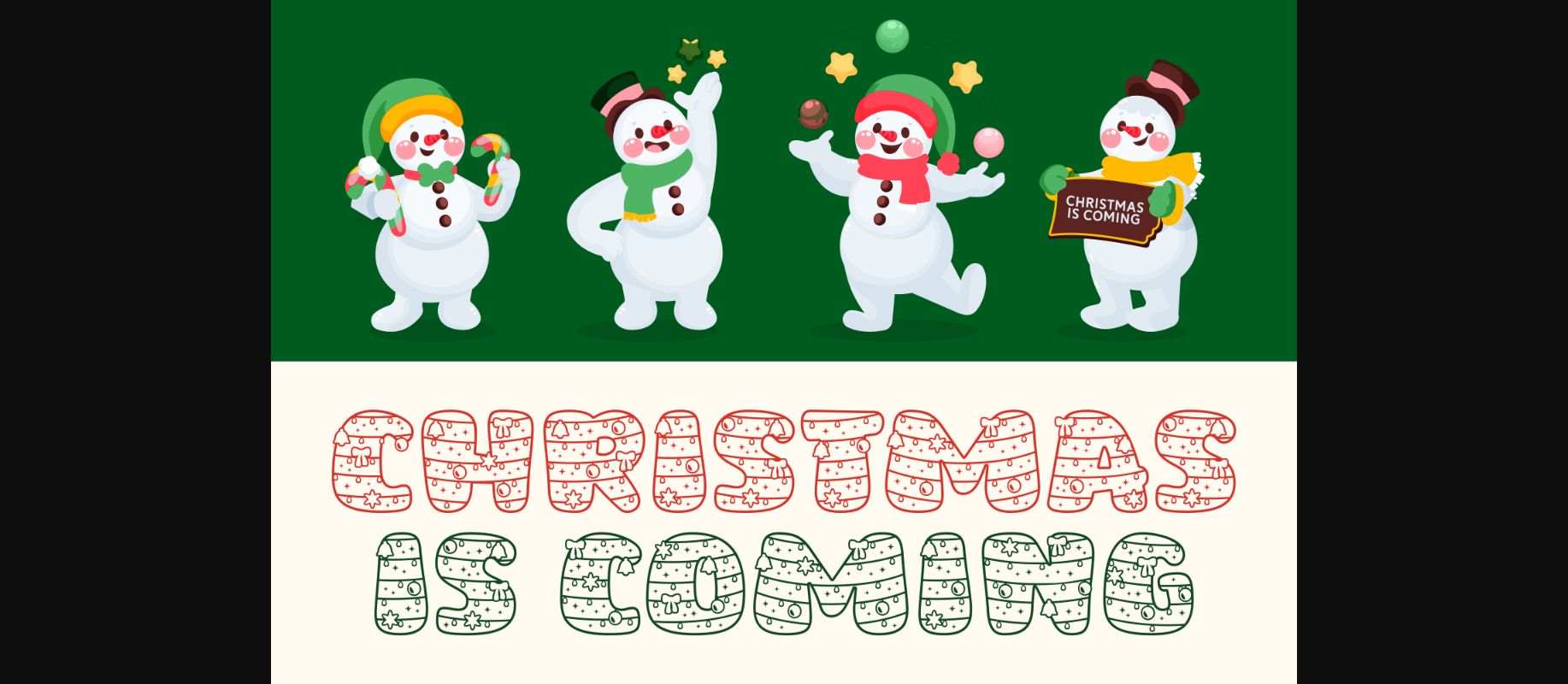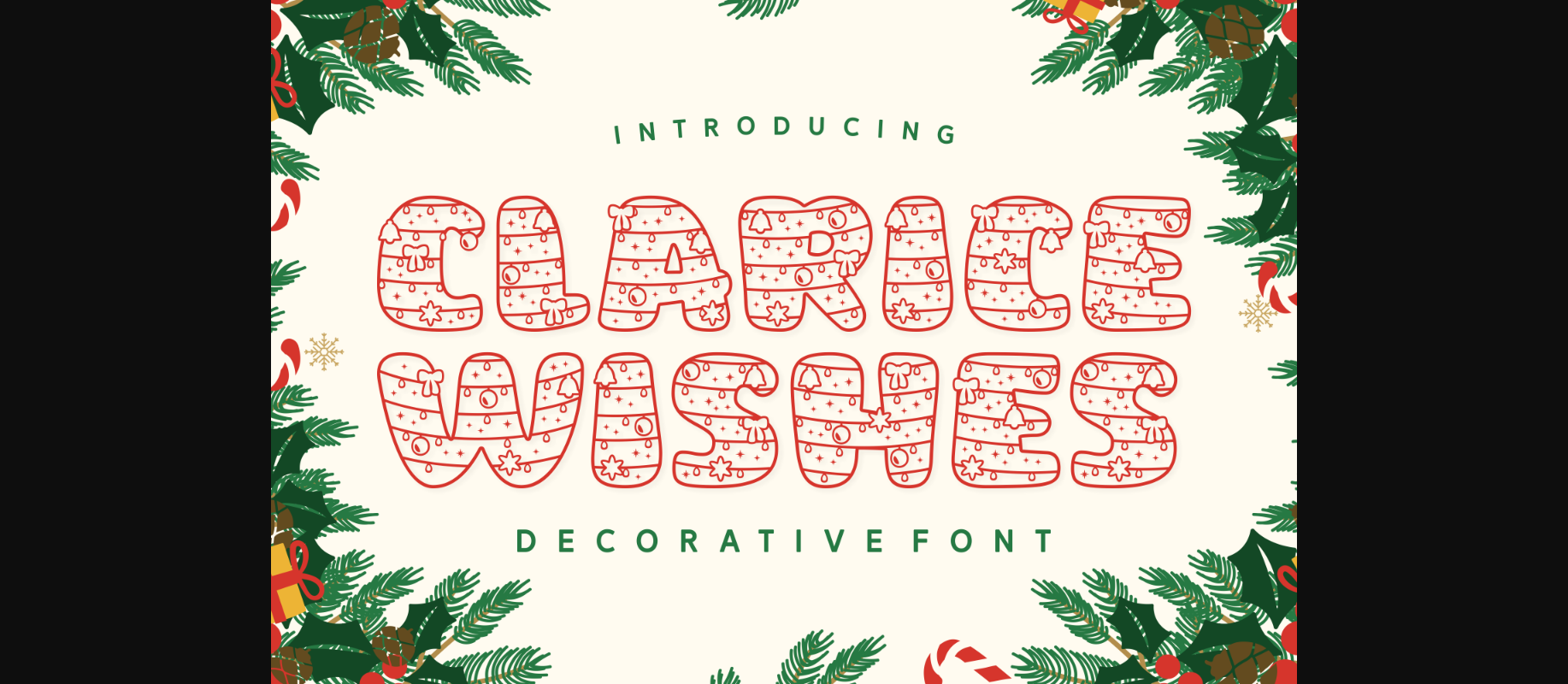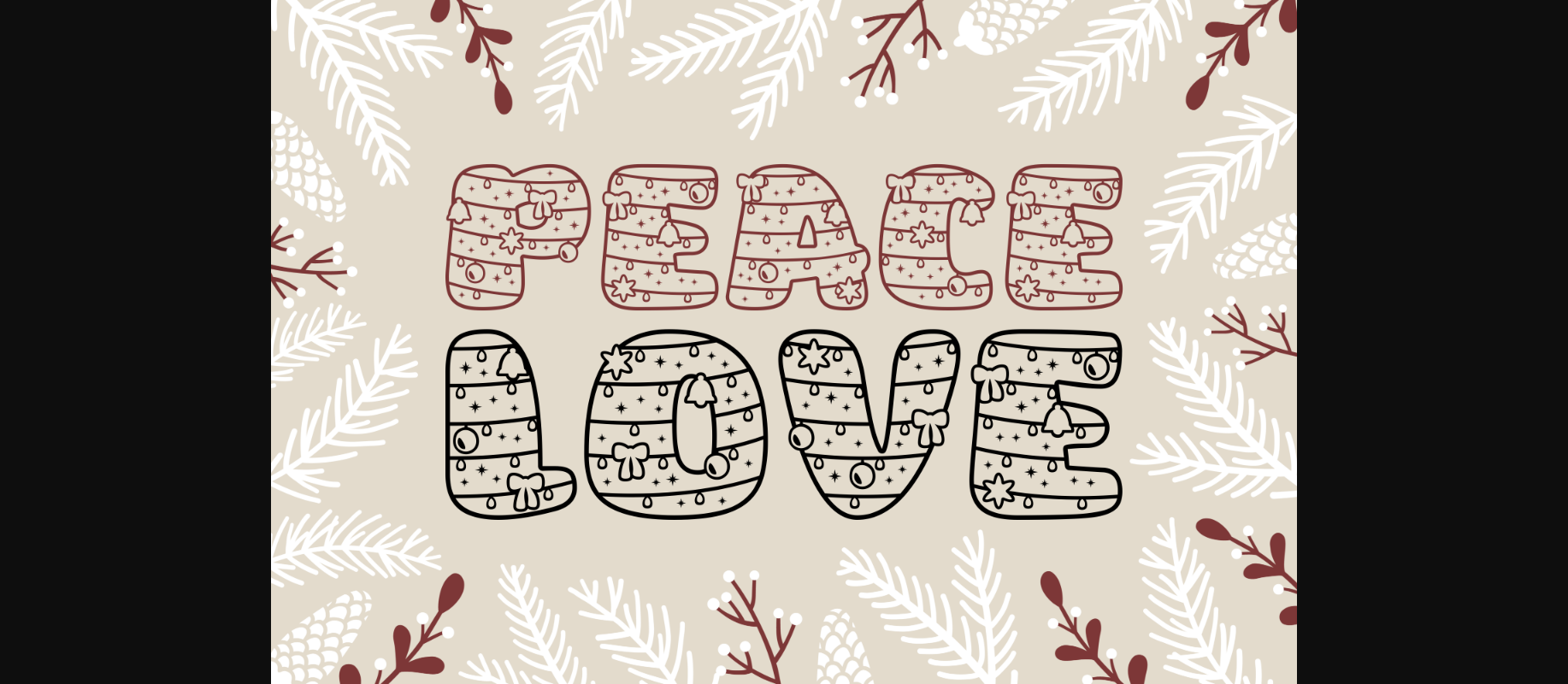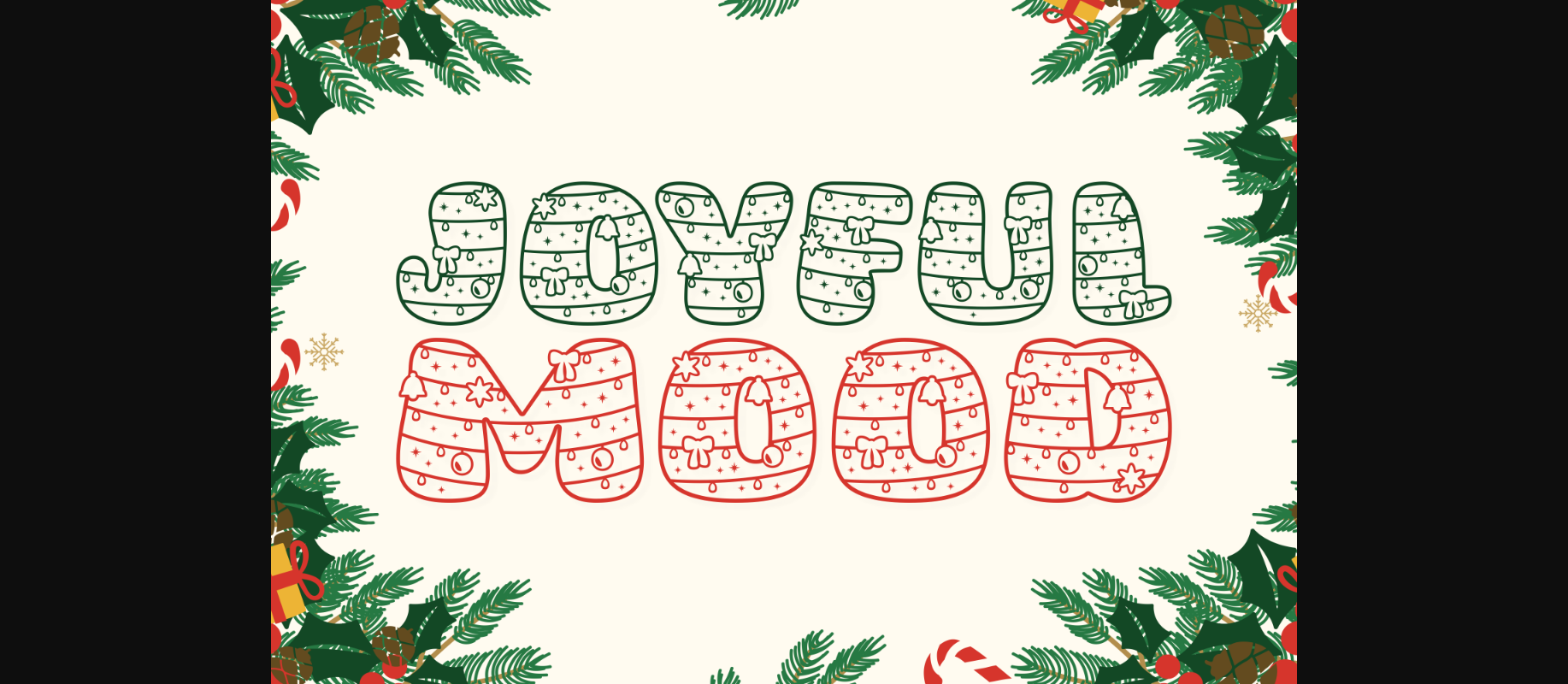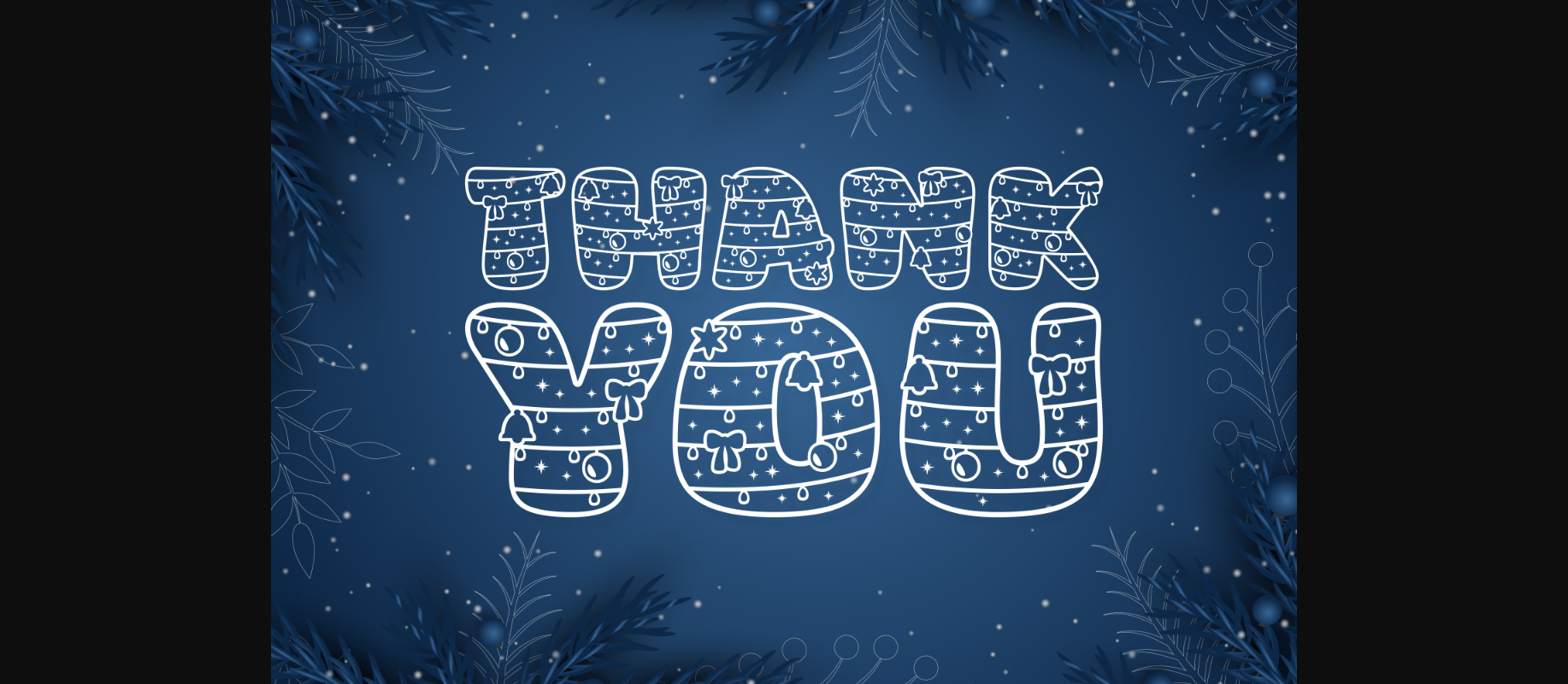
About Clarice Wishes Font
Clarice Wishes is a beautiful and charming decorative font. These cute and chunky characters feature lovely Christmas-themed details, making this font perfect for festive winter typography. Try it out in your next design project!